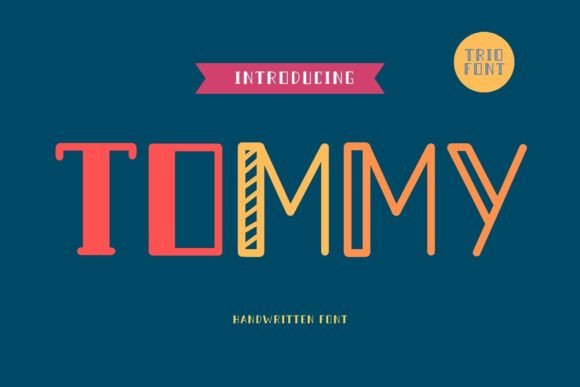
Introducing Tommy Font, a captivating handwritten font that exudes playfulness and authenticity, ready to elevate your creative projects to new heights. Crafted by Brown Cupple Fonts, Tommy is the perfect choice for bloggers, designers, and anyone seeking a font that speaks to their unique style. Adorn your blog posts, logos, branding, ads, invitations, greeting cards, planners, photo albums, decorations, and more with Tommy's charming strokes.
With Tommy Font, you can:
* Unleash your creativity and let your words dance with a font that reflects your personality.
* Capture attention and make a lasting impression with Tommy's distinctive design.
* Effortlessly create visually appealing content that resonates with your audience.
* Elevate your projects with a touch of playfulness and authenticity.
Tommy Font is not just a collection of letters; it's a gateway to a world of creative possibilities. Whether you're crafting a heartwarming blog post, designing an unforgettable logo, or creating eye-catching ads, Tommy has the power to transform your words into visual masterpieces.
Embrace the beauty of simplicity with Tommy Font. Its clean lines and effortless flow make it the perfect choice for blocks of text, ensuring readability and visual appeal. Whether you're writing a captivating article or sharing your thoughts on social media, Tommy ensures your words shine.
Immerse yourself in a world of creative expression with Tommy Font. Its versatility knows no bounds, allowing you to bring your artistic visions to life effortlessly. From whimsical invitations to heartfelt greeting cards, from stylish planners to cherished photo albums, Tommy seamlessly adapts to your creative pursuits.
With Tommy Font, you're not just downloading a font; you're unlocking a treasure chest of creative possibilities. Let your imagination soar as you explore endless opportunities to express yourself uniquely and authentically.